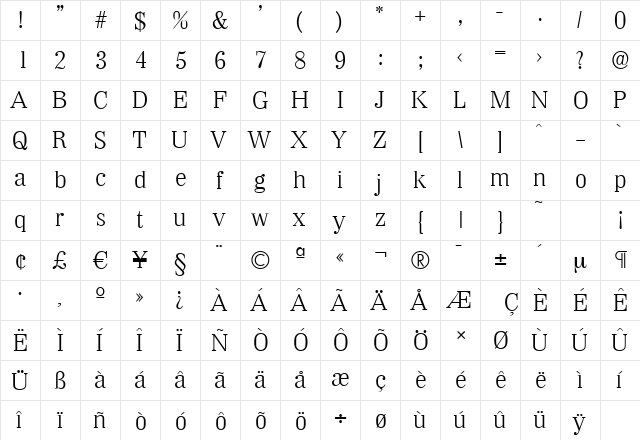
WichitaSerial-Light Regular
Design Context for WichitaSerial-Light Typeface
WichitaSerial-Light takes a measured approach to typography — its balanced proportions and neutral character make it a reliable workhorse for both digital and print work. Its slender proportions lend an understated elegance to any composition.